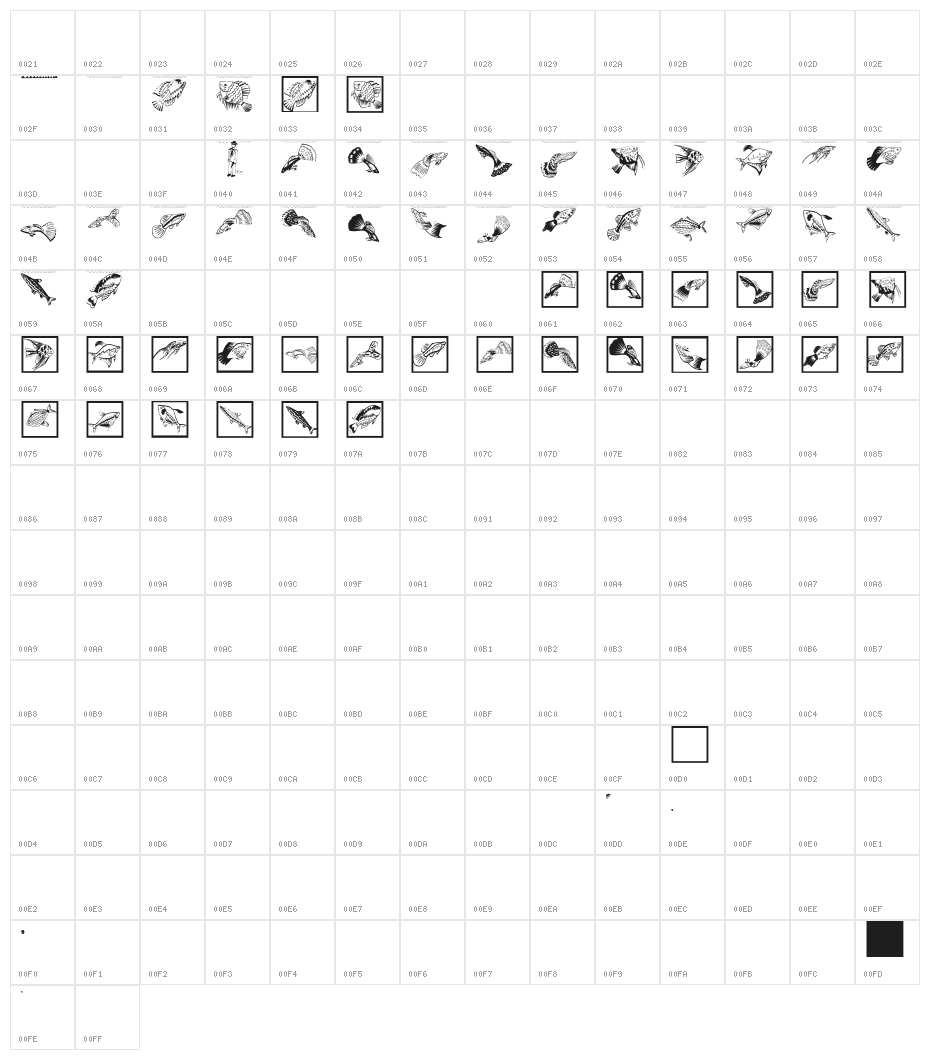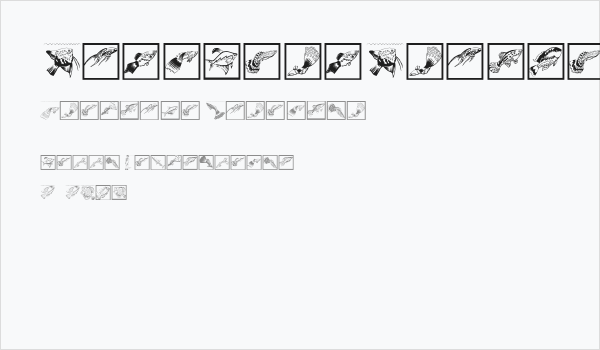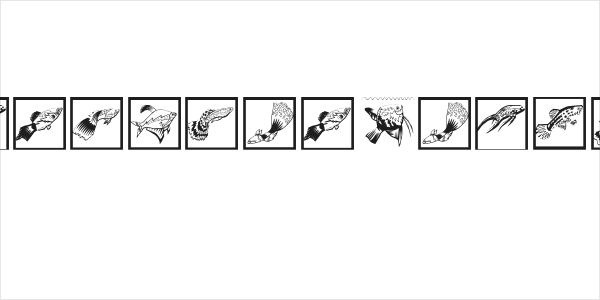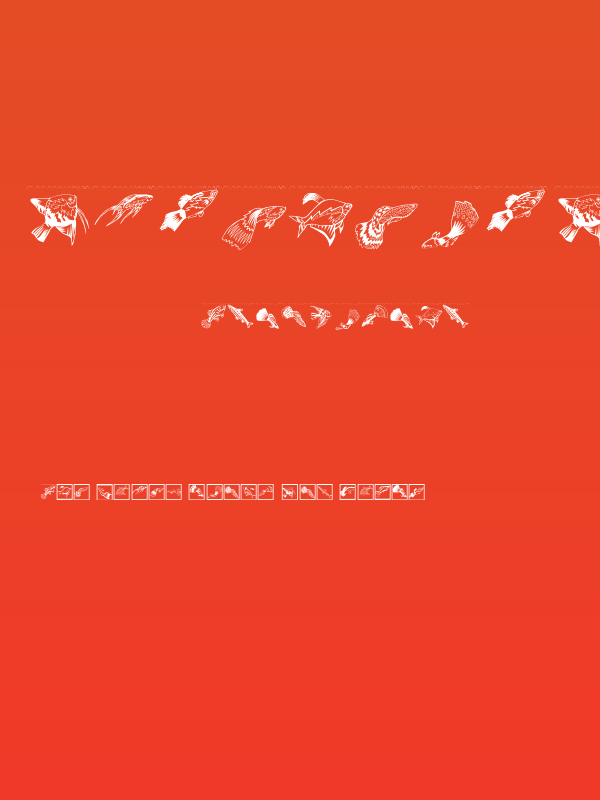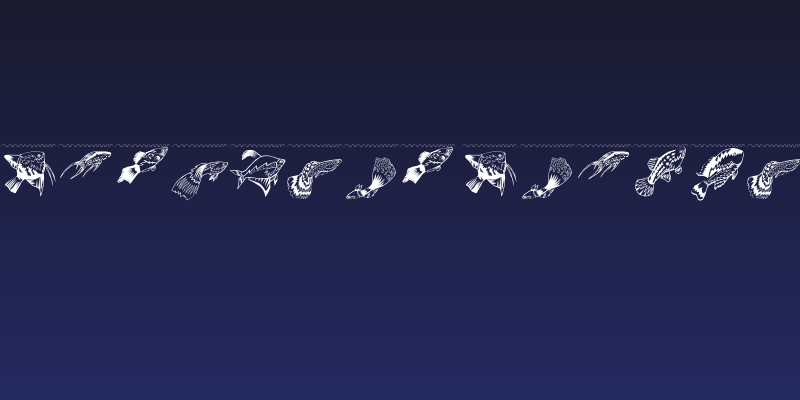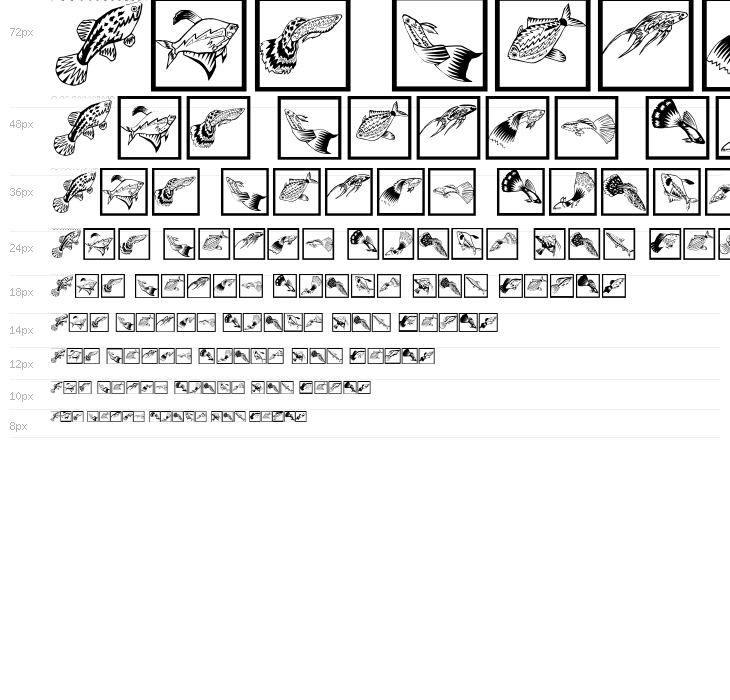
FischersFritze Font
FischersFritze Description
A decorative display font composed entirely of detailed fish illustrations, each character represented by a unique fish drawing, some within square frames and others freeform, with high contrast and intricate line work.
| Overall Style | Decorative, Whimsical, Thematic |
| Use Case | Logos, Posters, Headlines, Themed Graphics |
| Proposed Projects | Aquarium branding, children's books, marine-themed posters, educational materials, event invitations. |